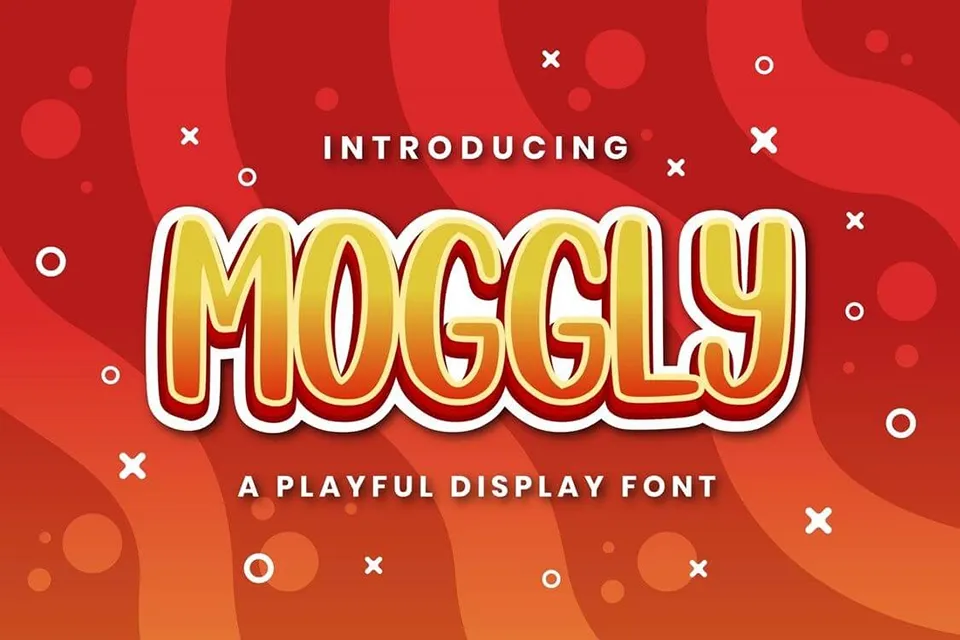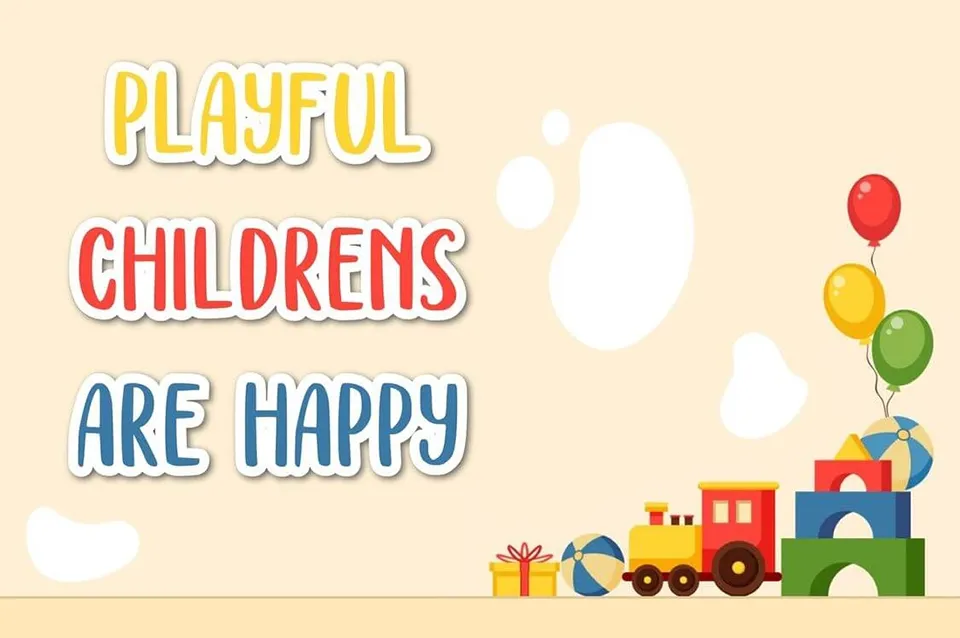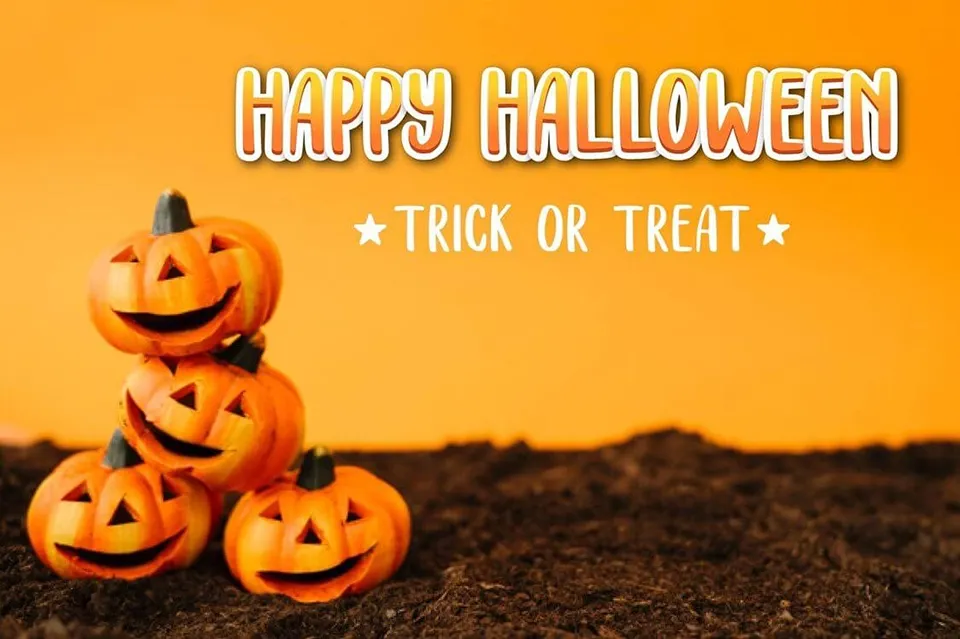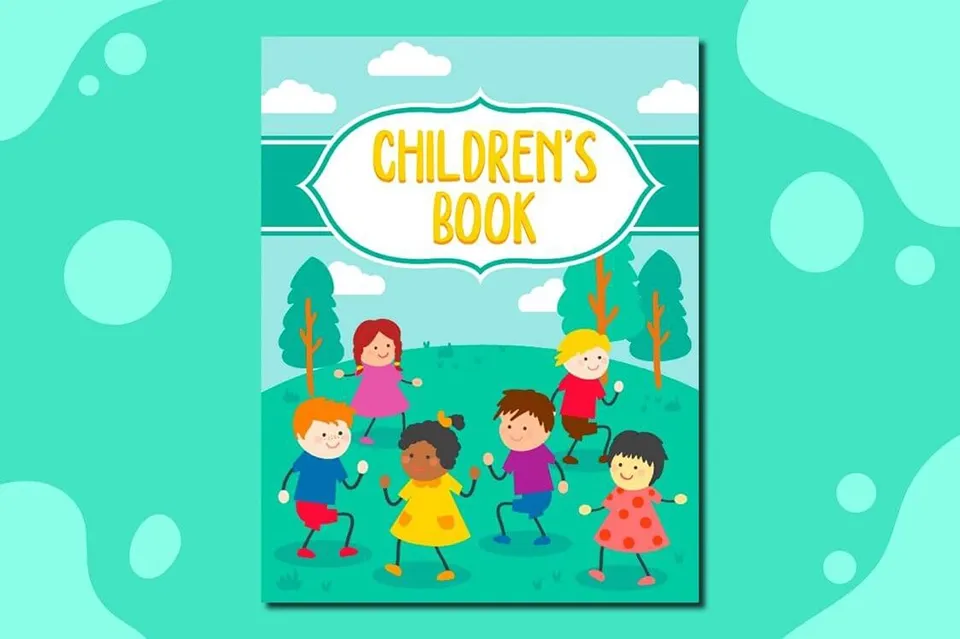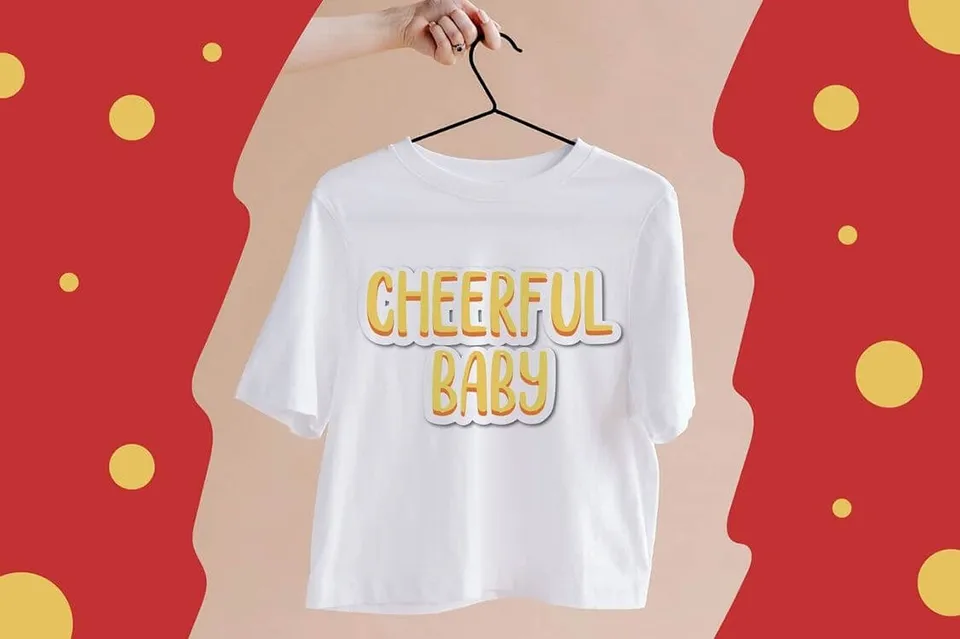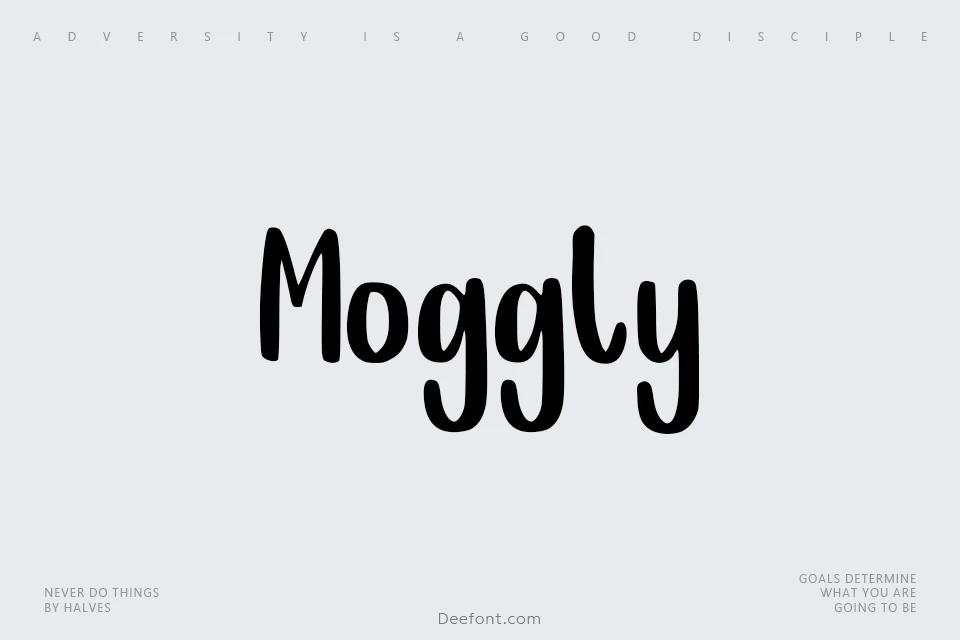
Moggly Font
Moggly Font is a fun and quirky display font designed to bring a playful touch to your creative projects. With its bold, rounded letterforms and cheerful style, Moggly is perfect for children’s books, school projects, posters, and any design that needs a lively and friendly vibe. The font features uppercase and lowercase letters, numbers, punctuation, and supports multilingual characters, making it versatile for various uses. Add Moggly to your toolkit and watch your ideas stand out with its unique personality.